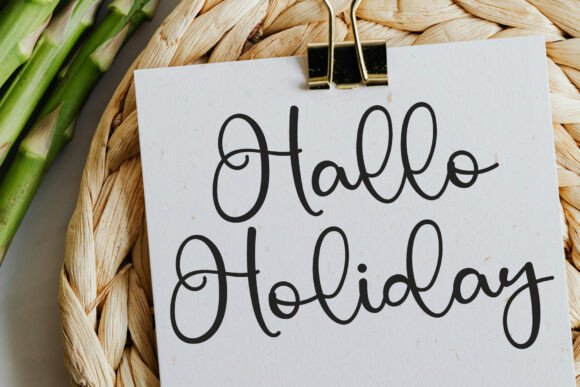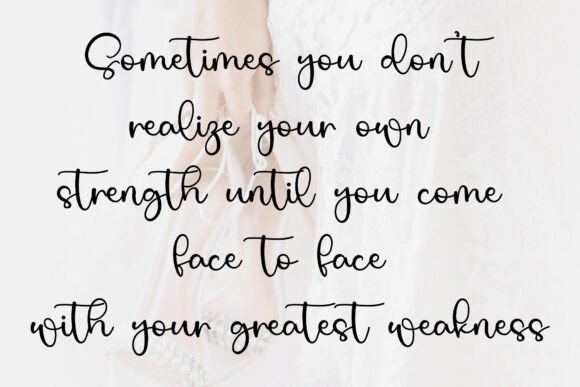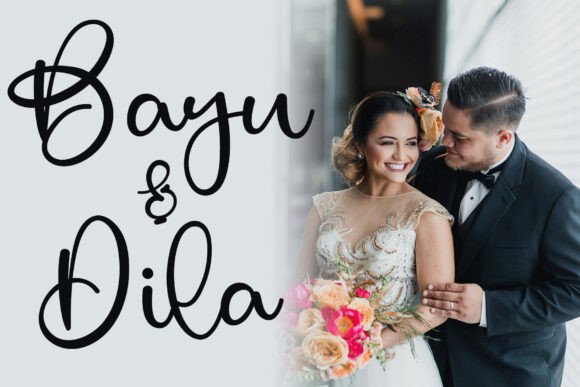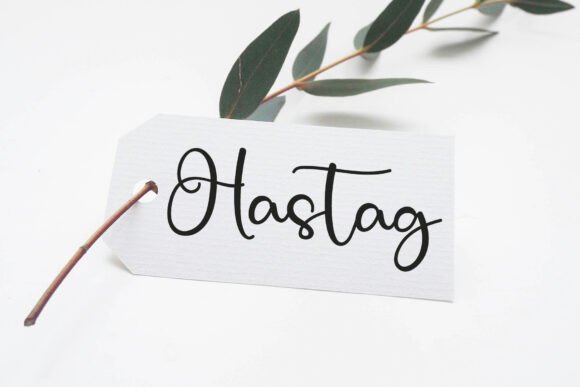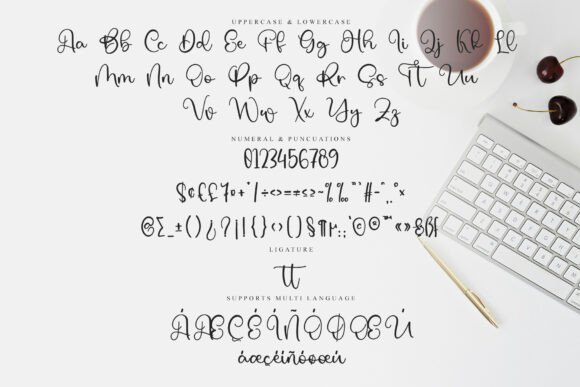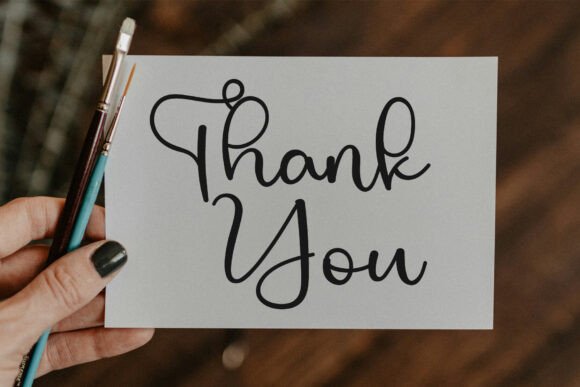
Introducing Chesty Font: The Epitome of Elegance and Timelessness
In the realm of typography, few fonts manage to strike a balance between elegance and boldness. Chesty Font is one such exceptional typeface that seamlessly merges the fluidity of script handwriting with the enduring appeal of vintage design. This sophisticated font is perfect for designers and crafters looking to imbue their projects with a sense of class and timelessness.
The Characteristics of Chesty Font
Chesty Font is distinguished by its fluid strokes, graceful curves, and dynamic flow. These characteristics not only contribute to its aesthetic appeal but also make it highly versatile. Whether you’re aiming to create a stylish signature, a compelling branding design, or you’re drawn to nostalgic vintage aesthetics, Chesty Font is an excellent choice. Its unique blend of script and vintage elements allows it to stand out in any design project.
Perfect for Sophisticated and Powerful Impressions
What sets Chesty Font apart is its ability to convey a sense of sophistication and power. In today’s competitive design landscape, making a lasting impression is crucial. With Chesty, you can achieve just that. Its bold yet elegant appearance commands attention without compromising on refinement. This makes it an ideal font for luxury brands, high-end products, and any project that demands a premium feel.
Applications of Chesty Font
The versatility of Chesty Font means it can be applied to a wide range of design projects. Here are some of the areas where Chesty truly shines:
- Branding and Logos: Use Chesty to create a memorable brand identity that exudes elegance and class.
- Invitations and Announcements: Add a touch of sophistication to your invitations, whether it’s for a wedding, a gala, or a product launch.
- Packaging Design: Elevate your product packaging with a font that communicates luxury and quality.
- Marketing Materials: From brochures to billboards, Chesty can help your marketing materials stand out.
- Digital Media: Use Chesty in your website headers, social media graphics, and video intros to create a cohesive and stylish visual identity.
Why Choose Chesty Font?
Choosing Chesty Font for your design projects comes with several benefits:
- Uniqueness: Chesty offers a unique blend of script and vintage elements, making your designs instantly recognizable.
- Versatility: Its adaptability means it can be used across various design projects and applications.
- Elegance: Chesty brings an unmatched level of elegance to any design, ensuring your projects look refined and sophisticated.
- Timelessness: Unlike trends that fade, Chesty’s classic appeal ensures your designs remain relevant for years to come.
Chesty Font is more than just a typeface; it’s a design statement. Its perfect blend of elegance, boldness, and timelessness makes it an invaluable asset for designers and crafters. Whether you’re looking to create a lasting brand identity, add a touch of sophistication to your marketing materials, or simply want a font that stands out, Chesty is an excellent choice. With Chesty Font, you can effortlessly deliver elegance and uniqueness to your designs, ensuring they leave a lasting impression.